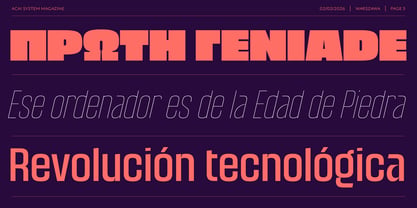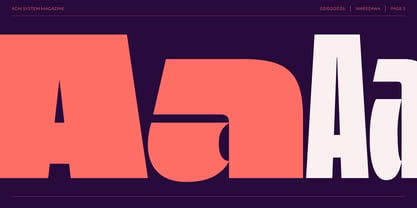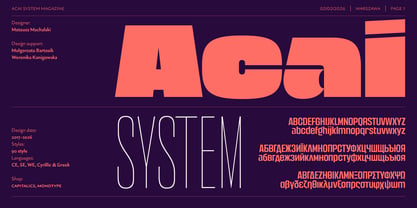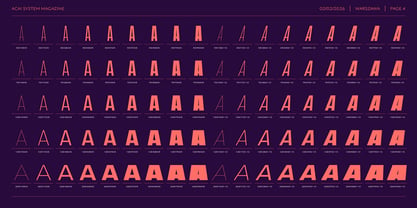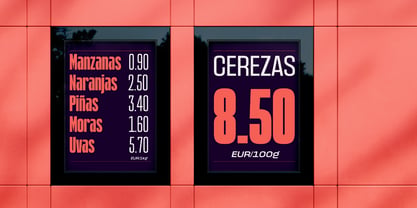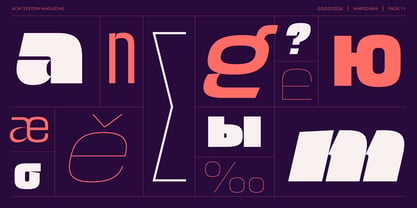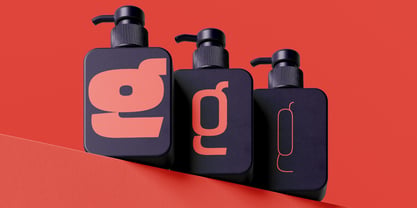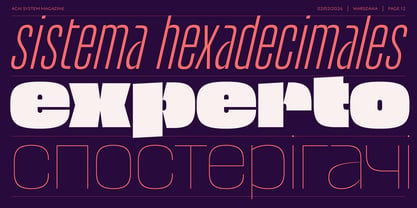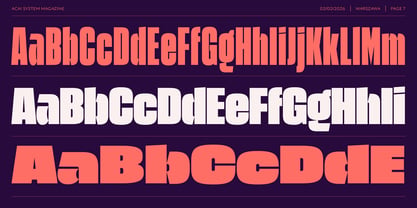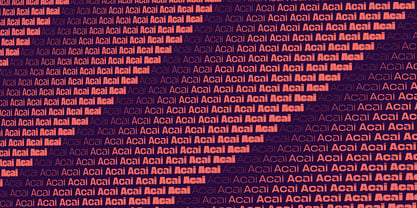
Acai System
by Machalski
The Acai System Font Family was designed by Mateusz Machalski and published by Machalski. Acai System contains 90 styles and family package options. More about this family
Acai System is a turbo ultra super giga thick typeface; the sketches of this typeface were created during my 3rd trip to Rio de Janeiro. The inspiration was greasy headline typefaces, geometric street graffiti and brutalist architecture intertwined with colonial buildings and breathtaking nature. Acai will work wherever the headline should be the most important part of the project. His blocky and strong character is easy to break with a color that gives it a friendly vibe. Since 2025, Acai includes Latin, Cyrillic (including Bulgarian) and Greek versions. At a later stage, the typeface was expanded to include additional weight and width masters. The final family comprises 9 weights across 5 widths, each accompanied by matching italics. Design Support: Małgorzata Bartosik & Weronika Kanigowska
Designers: Mateusz Machalski
Foundry: Machalski
Dr hab. Mateusz Machalski, Associate Professor (b. 1989) – Vice-Rector for Artistic Affairs at the Academy of Fine Arts in Warsaw. Designer, typographer, lecturer and researcher specializing in visual communication and graphic design. He graduated with Rector’s Honours from the Faculty of Graphic Arts at the Academy of Fine Arts in Warsaw (2009–2014), where he currently teaches at the Multimedia Artistic Creation Studio. Named Designer of the Year 2019 at the Polish Graphic Awards, he has been repeatedly awarded in national and international competitions, including KTR, Ascender 2018 – Type Directors Club New York, MUSTHAVE, The DieLine, Red Dot Design, The Best of Design 2018 – Klub Twórców Reklamy, and Animator 2020 – DESIGN ALIVE. He is a five-time recipient of the Polish Ministry of Culture’s scholarship, a laureate of the Ministry of Science and Higher Education’s scholarship for outstanding young researchers, and of the “Young Poland” programme by the National Centre for Culture. He was awarded the Centennial of Regained Independence Medal by the President of Poland. He is a curator and member of the programme board of the International Poster Biennale in Warsaw, and Art Director of the magazines newonce paper and Warsawholic. He has created more than 80 typeface families – including numerous corporate and multi-script designs – and over 200 visual identities for companies, institutions and cultural events. His fonts are distributed through platforms such as Google Fonts, Adobe and Monotype, and his clients include leading Polish and global brands. He has led teams digitizing key works of Polish typography, including “Półtawski Nowy”, “BRYGADA 1918” (launched at the Presidential Palace), and carried out the long-term “Bona Nova” project together with Andrzej Heidrich – the designer of Polish banknotes. He co-created Typoteka – the first Polish index of typography (1474–2024). Co-founder of the first Polish type foundry – Capitalics. He is also the author of numerous texts, articles and exhibitions on graphic design and visual culture, as well as the “Creative Typography” course published by Design Practice. He conducts research projects, workshops and lectures at universities and conferences in Poland and abroad.